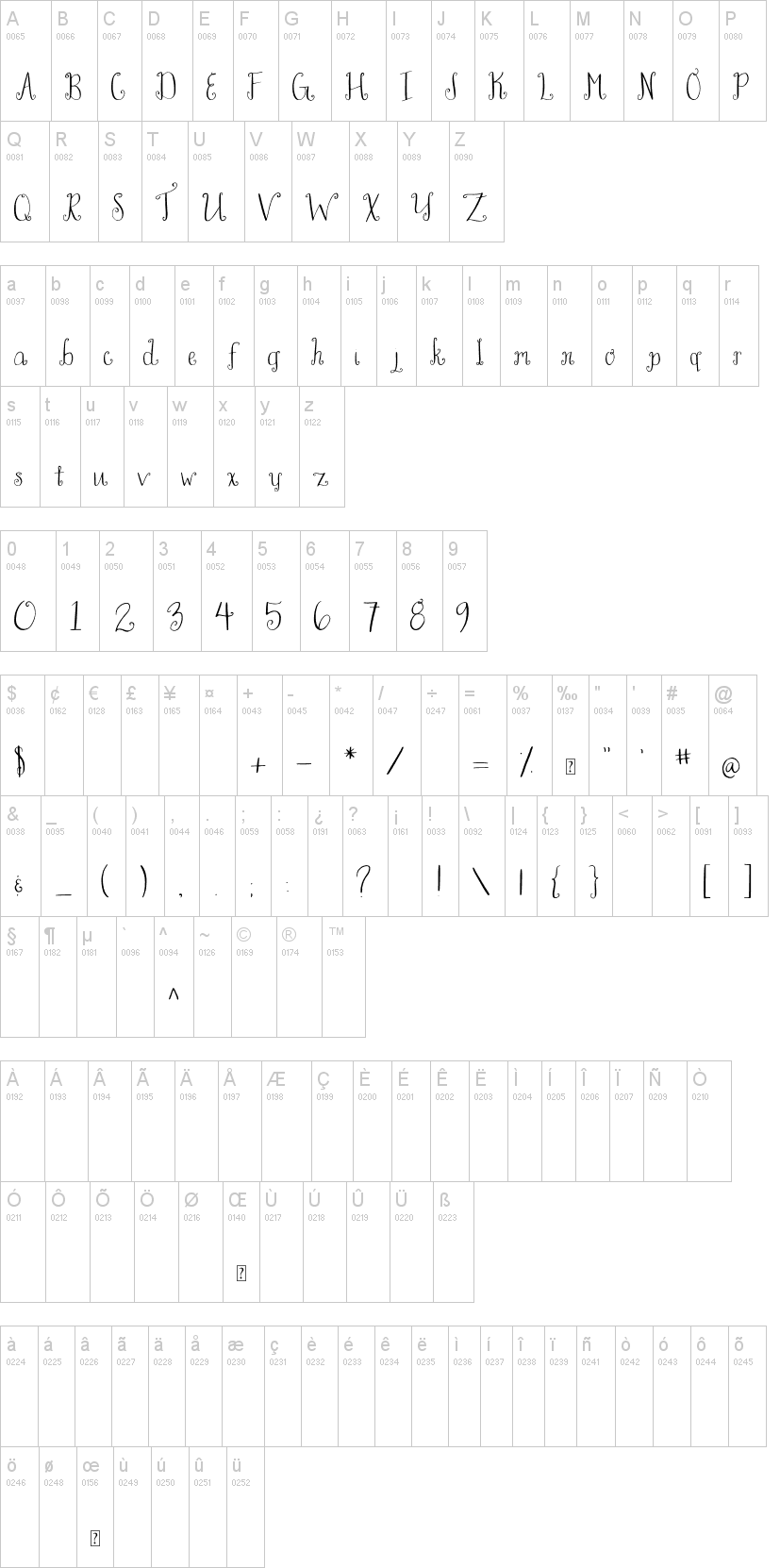
Шрифт Peony Charming
I am a calligrapher, and have created a set of "Charming" fonts that have been hand lettered by myself. This font is called Peony Charming, and is a curly print font, written with a dip pointed pen.